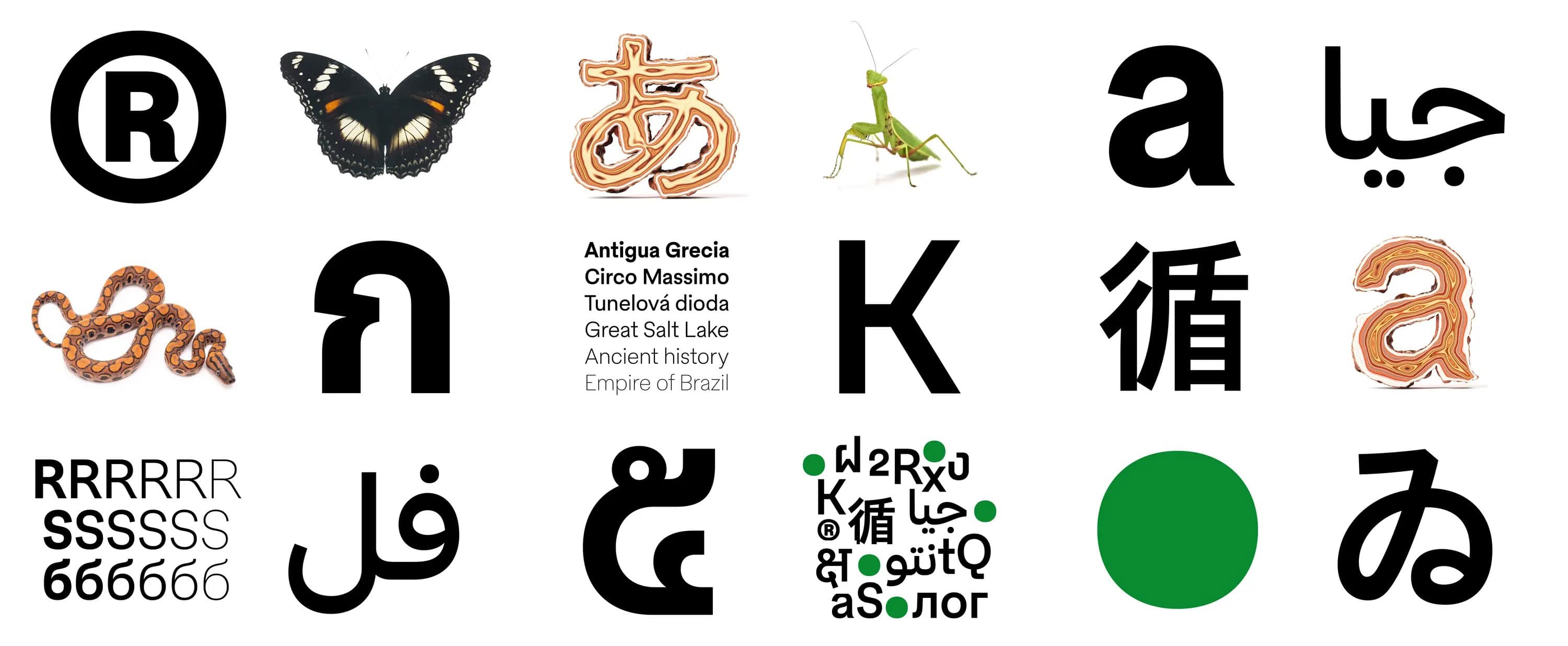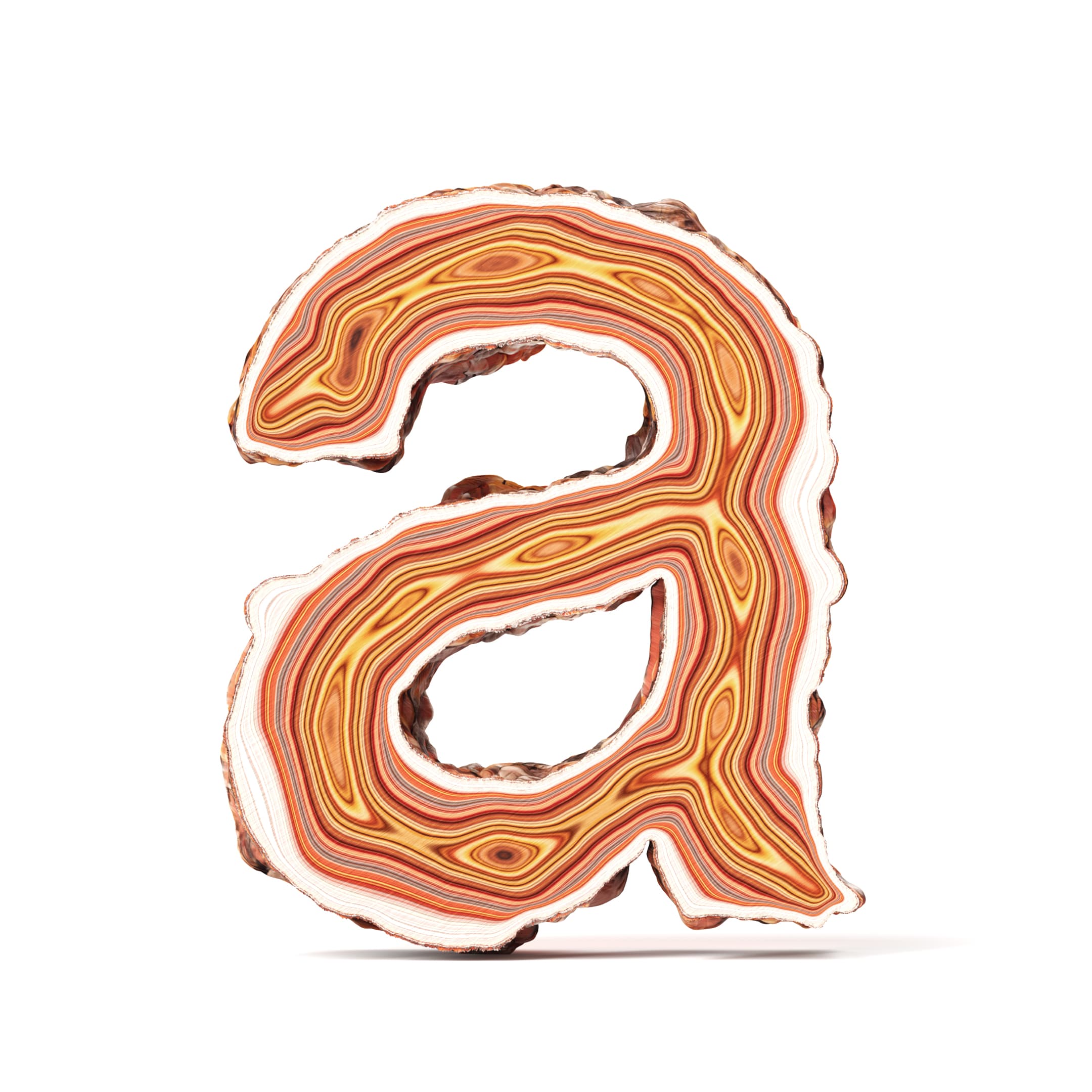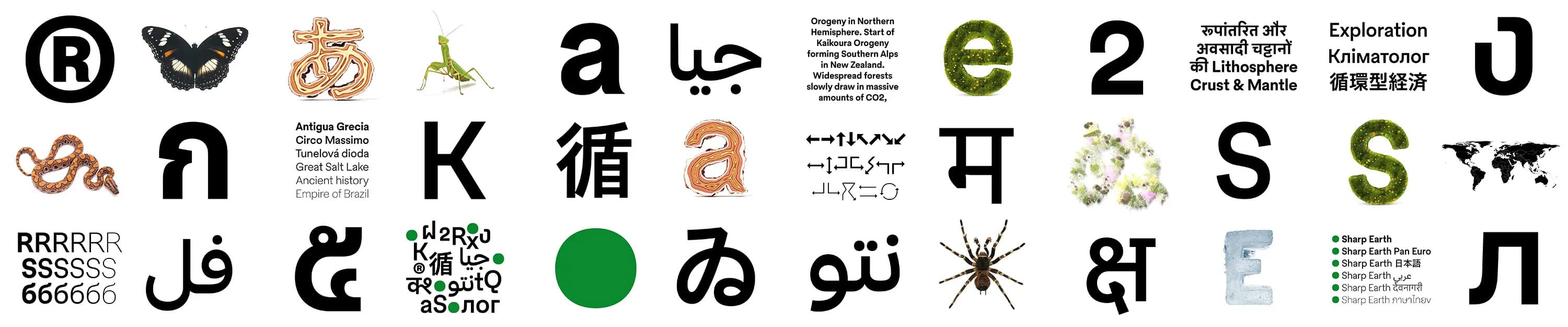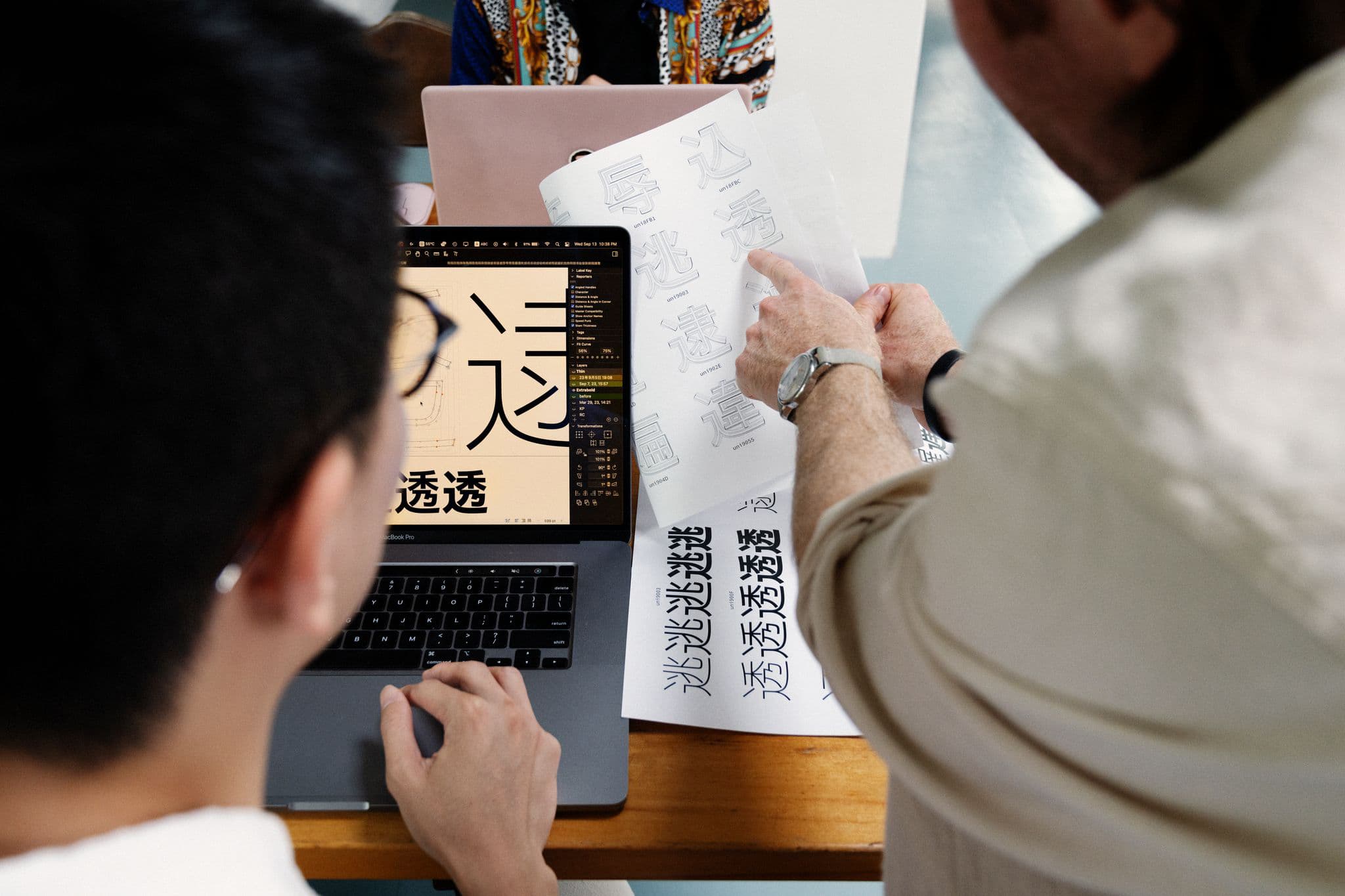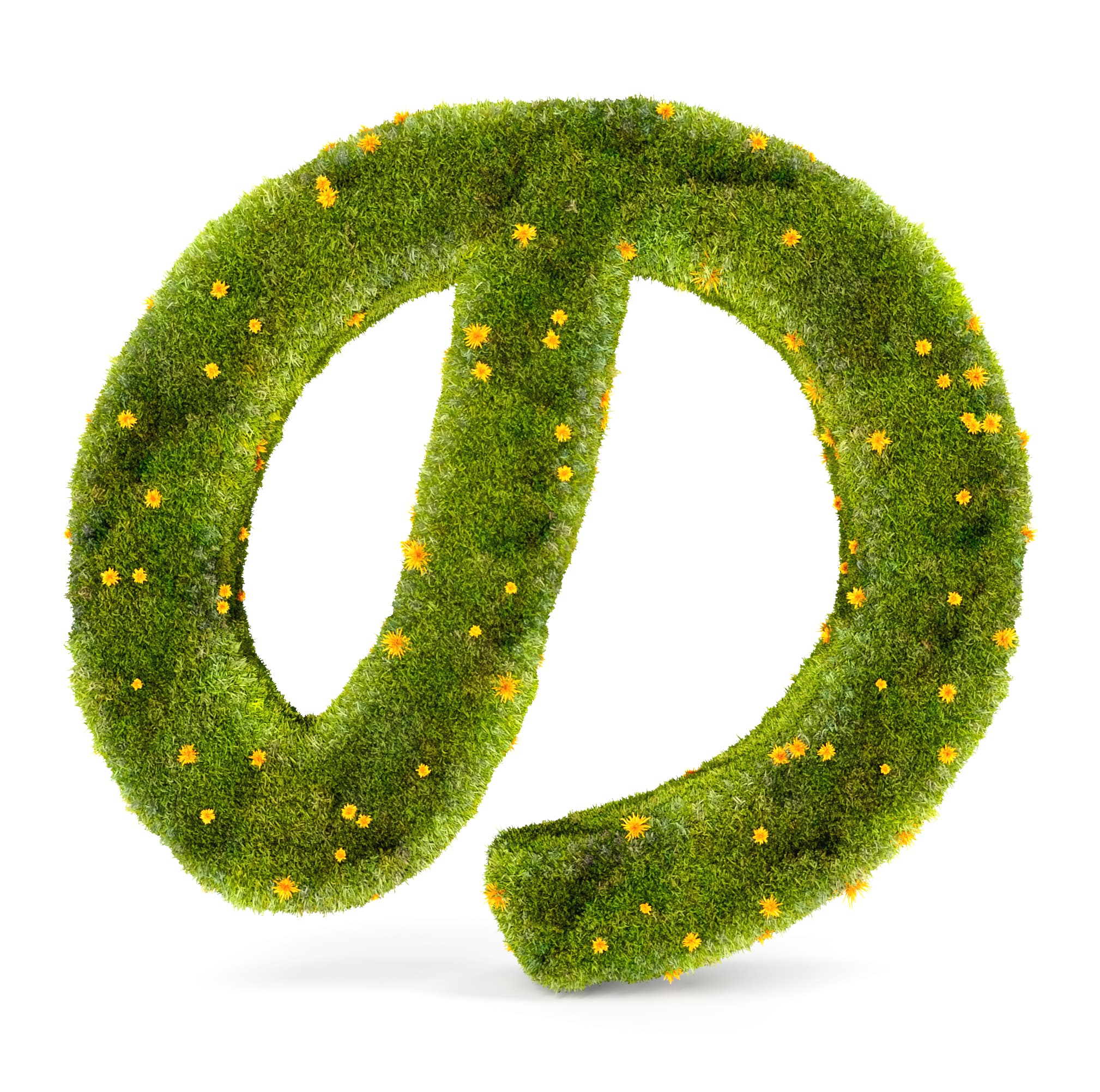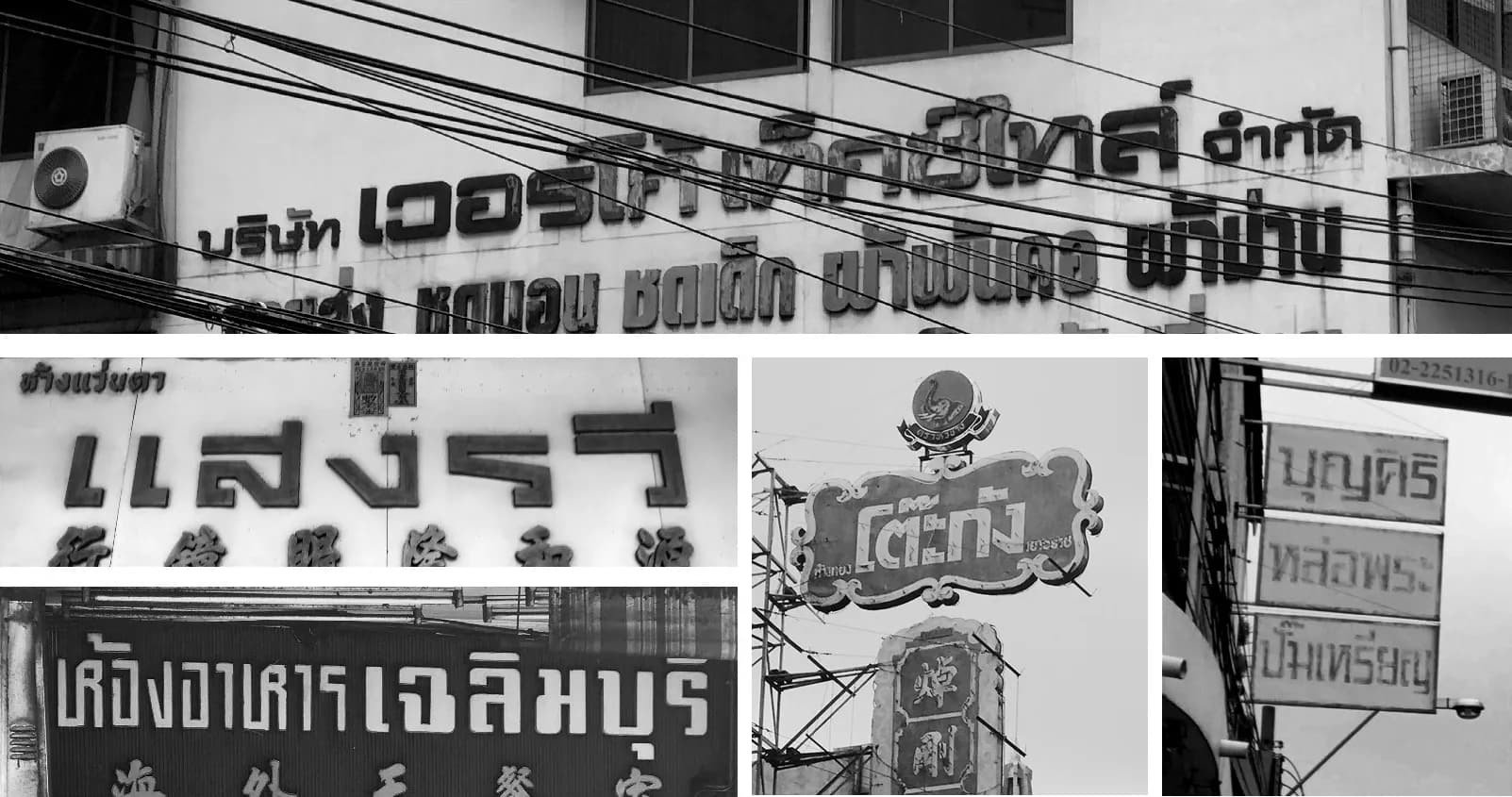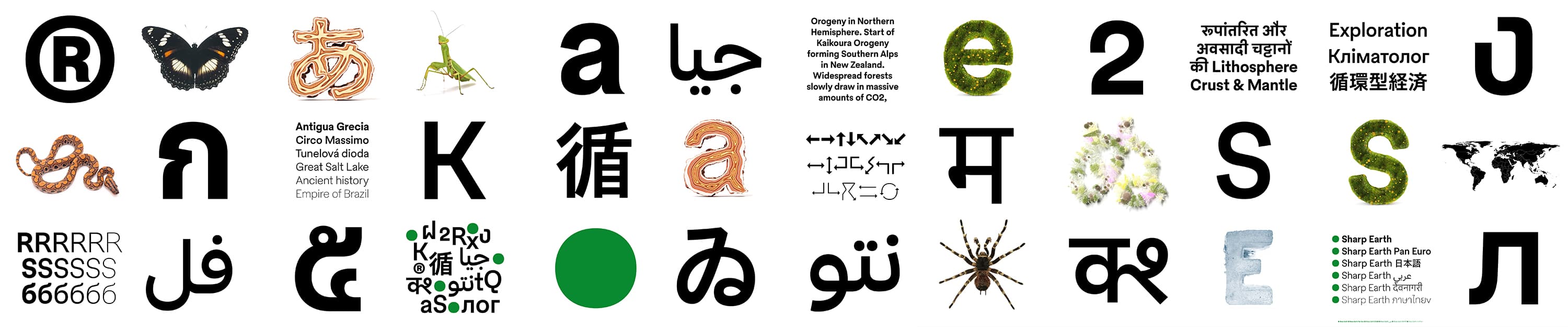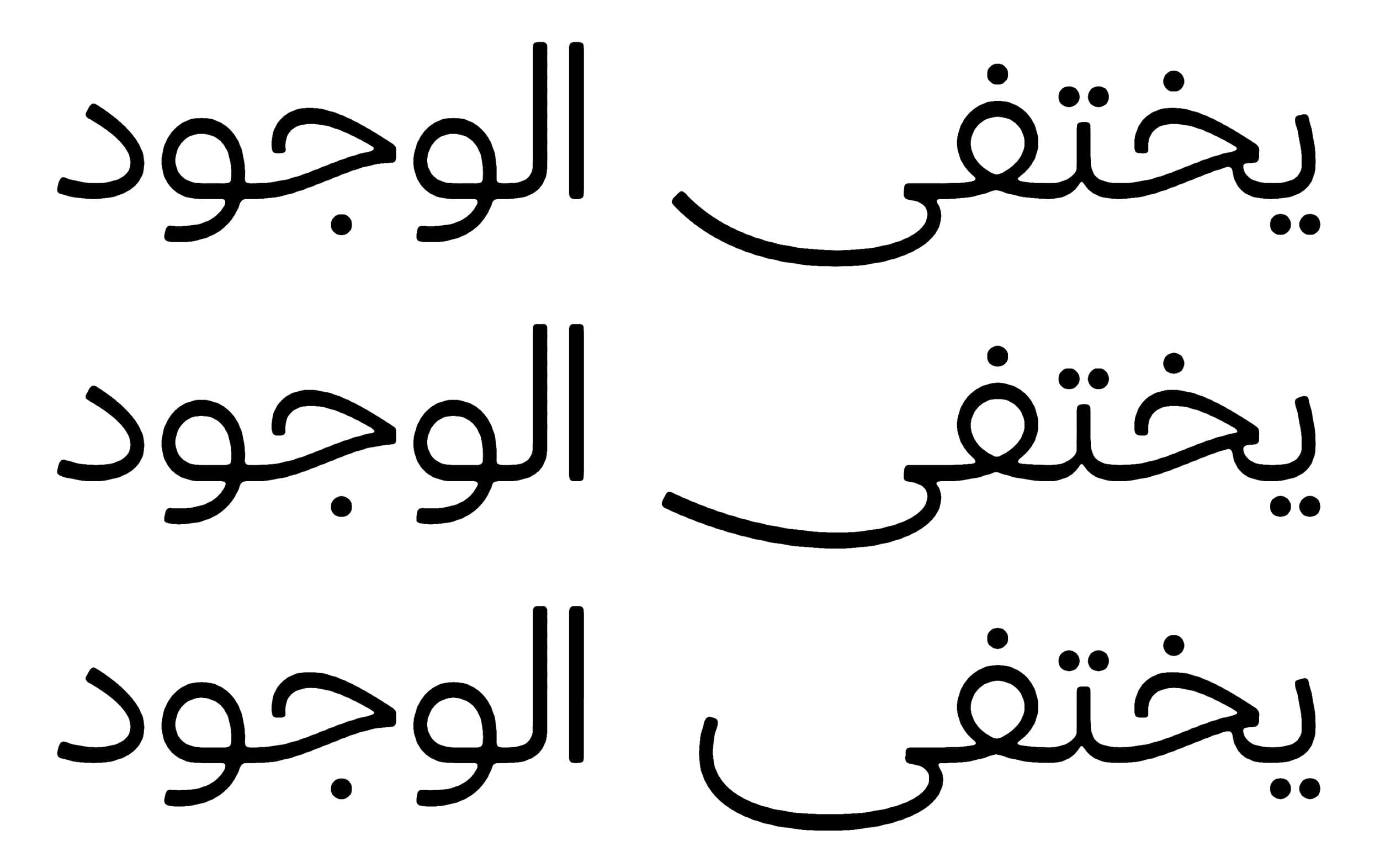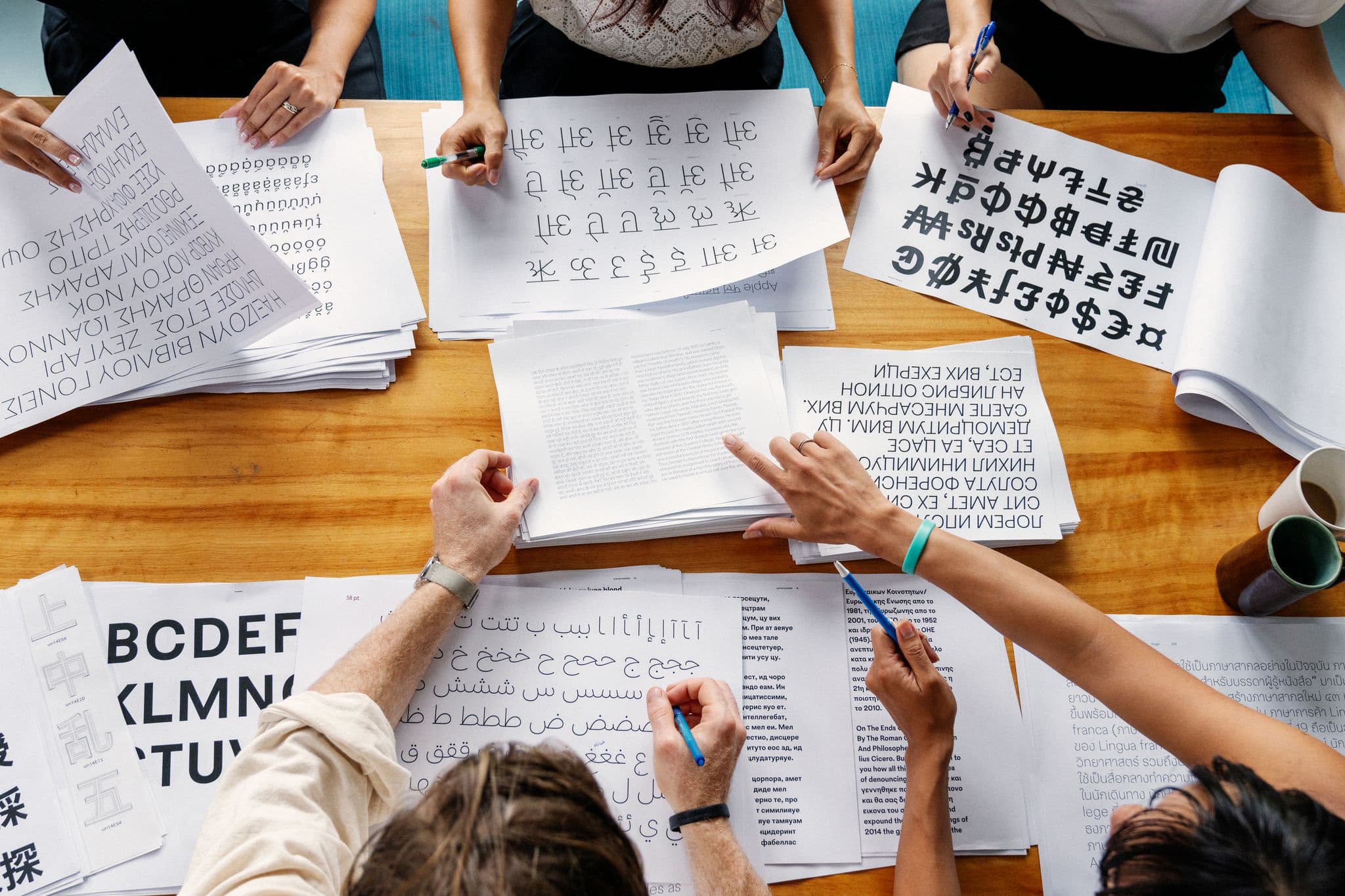
Sharp Earth is Sharp Type's largest multi-script sans serif typeface, spearheaded by Lucas Sharp and drawn in collaboration with a team of local experts from around the globe.
Sharp Earth is an expressive show horse sans serif with expansive workhorse utility. Conceived as a full-fledged multi-script family, the typeface is an amalgamation of geometric construction and Grotesk proportion. While Sharp Earth's virtually monolinear features and distinctive detailing unify the different scripts within a single collection, each one has been designed to function as a standalone typeface. The family covers nearly every latinized language script on Earth—a character set we call OmniLatin—in addition to Greek, Cyrillic, Arabic, Thai, Devanagari, and Japanese.
By the nature of its development and the particulars of its design, Sharp Earth doesn’t neatly exist within a single sub-genre of the sans serif pantheon. Rather, it brings together core aspects of the genre’s styles in order to emphasize utility, neutrality, and warmth. These qualities sit in beautiful tension with the characteristic flair that has become a trademark of Lucas’ sans serifs.
Beginnings
Sharp Earth’s origins reflect Lucas’s growing fascination with multi-script type design. In 2017, the typeface began as a series of sketches during a roadtrip through Thailand, drawn using a laptop trackpad. The family was initially conceived as a more modest PanEuro-Japanese typeface, pairing the subset of Latin, Cyrillic, and Greek with Japanese Kana.
While he was learning how to draw Greek and Cyrillic under the guidance of Kostas Bartsokas and Maria Doreuli, Lucas had also recently met and collaborated with Calvin Kwok, Sharp Type’s technical director, on Hiragana & Katakana prototypes for an unreleased Japanese typeface. He continued to chip away at Sharp Earth's OmniLatin Extrabold over the next 3 years, while simultaneously drawing the first drafts of Sharp Earth's Hiragana, Cyrillic, and Greek.
This dovetailed with the early developmental stages of our new website, Sharp 2.0, and so the decision was made to expand Sharp Earth's scope, becoming Sharp Type's new flagship sans and the debut typeface offered on the new site.
“Although I’m a native Latin designer, and while the initial idea was fleshed out in that medium, the concept of Sharp Earth was to develop a typeface for a world that was shifting away from the primacy of the Latin script” - Lucas Sharp
Development
Despite the way this case study presents one script after the other in linear fashion, the development of Sharp Earth's scripts was anything but. Rather, the various lingual undertakings had unique origin points in space and time; workflows of distinct duration, pace, and rhythm; unplanned stops and re-starts; and differing end points. There was even a period of time when all six scripts were being developed simultaneously, and we're fortunate for our collaborators' shared aptitude, diligence, and patience.
Once the designs of all six scripts were more or less complete, the next challenge is one of the least glamorous parts of type design, and certainly its most under-sung: the mastering and font engineering. This last step ensures proper compatibility amongst the various language scripts. It's a big undertaking that requires the kerning of Sharp Earth's fonts, the mastering of each script, lots of testing and reviewing, and finally, organizing the family to ensure that the final files are uploaded and ready for commercial use.
OmniLatin
As Sharp Type’s flagship sans, Sharp Earth OmniLatin has been designed for scalability across a wide spectrum of applications, containing a myriad of subtle details that work on both micro and macro levels, whether for beautifully balanced paragraphs or rich, crisp headlines.
“In Thailand, I was struck by the way Eastern and Western vernacular styles were interacting on Bangkok signage. Traveling around the world, you see the artifacts of the first wave of globalization all around you: from the roughshod contortion of native writing systems to the stroke treatment and specifications of Western typographic styles—most notably the ubiquitous ‘international’ style’.”
The development of Sharp Earth OmniLatin is a progression of this design language. Its construction and texture reference the geometric sans, while the contrast and core proportions are more reminiscent of classic Grotesks. The slight contrast between vertical and horizontal strokes splits the difference between traditionally monolinear geometrics and moderately modulated gothics, giving the typeface an indelible presence.
The narrower double-story letterforms common in geometrics are paired with distinctly oval bowl shapes found in grotesks. The apertures are tight while the spacing is relatively loose. All of these contrasting forms coalesce into a texture that is warm but austere; that is eminently readable, but upon closer inspection reveals subtle quirks and novel ideas in every curve, counter, and join.
The uppercase /G, with its subtle overbite, nods to a feature in contemporary grotesks that has passed from trend to tenet.
“The upper case /R and upper case /B—the way the top and bottom bowl are the same width is a defining element of the typeface. The /R is a reference to Univers, and the flick at the end of it is another defining attribute of Sharp Earth.”
tttttt ffffff
Lucas drew tight steampipe curves at the lower parts of the /t and /f; the divot on the top shoulder of the /t is also a subtle quirk that adds texture in text settings.
☞☝☟☜○●◎ⓘ⚪⚫■☐☒☑▪▫❌✓⏮⏩⏵⏸⏹⏪⏭🔀🔁🔊🔇
👀💥🔥💬❦❧☠☯☘⚕⚔⚜⚖⚓☮☭✡✙✠☥☦✝☪⛩☬☸✚
⚦⚥♀♂⚢⚣⚤⚧⚲⚭⚮⚯←→↑↓↖↗↘↙↔↕↩↪↯↰↱↲↳☈↵⇆
☊☋☉☽☿⊕♁♃♄♅⛢♆♇♈♉♊♋♌♍♎♏♐♑♒♓⛎
☌☍⚹⚺⚻⚼□△∠⚸⚳⚴⚵⚶⚷☄🌐🪐⚠⚡⚐⚑⌂☺☹
♠♣♥♦★☼☾♳♴♵♶♷♸♹♺
Sharp Earth’s glyph set also has an extensive range of icons and symbols. Religious, astrological, and other cultural symbols are present, as are musical icons and UI characters.
The scope of OmniLatin takes an overview of the globe that is both expansive and pointillist. Over two years, we’ve built out the character set that is now available in Sharp Earth. Sharp Type’s My-Lan Thuong undertook extensive research with scant resources to determine the character set for an estimated 1500-2000 unique African scripts, while freelance type designer Cris Hernández developed a character set for the written forms of hundreds of Indigenous North American languages with the technical support of type expert Connor Davenport.
ⱭɑƎǝꞬɡƖɩɪɁʔʕɂ⅄ƆɔƱʊƲʋ
ɅʌƷʒˀʰⁿᶿʷʸᶻȽƚꞭɬⱢɫƟɵǤǥȺⱥ
ȻȼɆɇƛȾⱦꞸꞹȦȧǞǟḎḏḤḥǰḴḵ
ḶỊṈṉṚṛṢṣṮṯĄąĘęŲųɬŊꞋꞌʻ꞉ːˑ⋯‿ǂ
More recently, My-Lan, along with fellow colleague Léna Le Pommelet, began working with Belgian type designer Marte Verhaegen to develop a tool to make the build of OmniLatin’s character set faster, simpler, and more accessible. The trio consolidated an elemental system of glyph components to include the world’s wide-ranging Latin scripts: strokes, hooks and tails, reversed or mirrored characters, accents, and even Greek characters. With this expanded Latin character set, Sharp Earth OmniLatin has been built towards more inclusive support for virtually all underrepresented Latin languages. Furthermore, the tool itself was developed to make this character set more accessible to other designers, and it will soon be opensource for the benefit of the type community.
Earth, Tɛtʋ, Erde, Nunaqpak, Dinya, Lalolagi, Terra, Tiŋgbani, Jorden, Trái Đất, Ziemia, Maa, Ntoto, Suuf, Zemlja, Ayé, Yer, Papatūānuku, Sêse, Lefatshe, Tal, Dünya, Akal, Tierra, Yvy, Honua, Aarde, Jörðin, Zəmin, Andonɛɛ, Misava, Bumi, Nunarsuaq, Dhul, Terre, Lurra, Tawava, Tero, Nahasdzáán, Mma, Pământ, Źymja, Aski, Swanta, uMhlaba, Ensi, Kalibotan
As a standalone script, Sharp Earth OmniLatin is our most thorough undertaking yet. It's also notable that it's the studio's first Latin font that was conceived as part of a multi-lingual family, and drawn in tandem with other native scripts. There is much more to come in the world of Sharp Earth, and OmniLatin sets the bar for what is possible.
Pan European
If the studio’s first foray into multiscript type design, Sharp Grotesk Global, was the genesis of Lucas’s fascination with multiscript design, Sharp Earth reflects Lucas’s growing expertise.
Lucas drew the Greek and Cyrillic himself, having gained enough experience directing Sharp Grotesk’s development. “I didn’t look at any reference material while drawing them, either,” says Lucas. “It was all very intuitive.” While Kostas and Maria were integral as consultants, Sharp Earth PanEuro was conceived as a set, and Lucas drew the Greek and Cyrillic in tandem with the Latin, refining them all concurrently.
Lucas had come to understand the distinct contrast methodology and stroke emphasis of standard Cyrillic text faces, which was key to accurately drawing Sharp Earth’s character set. “Even a seemingly monolinear typeface like Sharp Earth had to be informed by these underlying principles,” he says. “A good example is (И), which might appear as a direct mirror of the Latin /N. If, however, this letter was drawn with the weight compensation typically used for an /N, it would look strange to those familiar with Cyrillic. The difference is to remove weight from the middle stroke instead of the outer strokes to compensate for the weight, keeping with the essential ideal of this letter.”
И N
Д Л
The upper and lowercase forms of (Д) and (Л) operate on a similar principle, so subtle handling of weight with these forms was of the utmost importance.
That said, certain characters from the Latin alphabet carry over quite well to Cyrillic, especially when working with a sans serif of the international style. The Cyrillic uppercase offered many opportunities to employ the slight top-heavy style of Earth, such as the (Б), (Ч), and (Я).
Б Ч Я б
The (Я,я) form is based on an older, more Grotesk version of the Latin /R that turned out to be more appropriate for the Cyrillic version. This /R is still accessible as an alternate for Latin.
“Cyrillic’s fundamental forms and shapes offer fewer opportunities to express Sharp Earth’s curvilinear eccentricity, so the lowercase (б) is an important moment, as is its Bulgarian alternate counterpart.”
“The Greek script, on the other hand, offers much more opportunities for curvilinear expression, so much so that I got a bit carried away.” The robust set of alternates in the Greek lowercase is the result of extensive experimentation with different letter constructions with the goal of achieving the perfect balance of expressive humanist shapes and austere geometric forms. “I was very attached to the lusciously curvy (theta.alt, phi.alt), but in the end, they were a bit too curvaceous.”
“The (alpha.alt, gamma.alt, iota.alt, kappa.alt, lambda.akt mugreek.alt, tau.alt, and chi.alt) were more geometric than the Latin, and we were happy to relegate them to a stylistic set.”
ΑΆΒΓΔΕΈΖΗΉΘΙΊΪΚΛΜΝ
ΞΟΌΠΡΣΤΥΎΫΦΧΨΩΏ
αάβγδεέζηήθιΐίϊκλμν
ξοόπρστυΰϋύφχψωώ
Sharp Earth is a contemporary expression of the international style, encapsulating a forward-looking aesthetic paradigm that has been drawn by and for a truly global design culture. Sharp Earth PanEuro has a unique place in the family since their core character sets, along with OmniLatin, were drawn by a single designer, giving this subset an unmistakable consistency of form and feel. The family is both workhorse and flagship, encapsulating the ethos of the larger collection while testifying to Lucas’ expanding skill set as a type designer.
Japanese
Sharp Earth Japanese is a comprehensive Japanese typeface system covering Hiragana, Katakana, and Kanji scripts that retains Sharp Earth’s core design principles of warmth and neutrality. Overseen by Lucas Sharp and led by Calvin and Klio Peng, Sharp Earth Japanese’s development involved extensive research, meticulous planning, and collaborative design efforts with an international team. Its design required the creation of new tools and evolving systems over a period of two years of sustained, concentrated work. The result is a harmonious typeface family that is a microcosm of the intricacies and complexities of contemporary multiscript design.
Initially conceived as a pairing of Kana with the PanEuro subsets of Latin, Greek, and Cyrillic, the original design of the Hiragana was drawn by Lucas in 2019, who produced a few drafts with the consultation of Ayaka Ito, a Japanese-American type designer. The scope of the project grew ambitiously when the decision was made to produce a complementary Kanji set. From Hong Kong, Calvin was tasked with putting together a team that could deliver such a massive character set on time and within budget. With Klio Peng onboard, the two of them led the production of Sharp Earth Japanese with group of Taiwan-based designers.
Japanese uses three writing systems: Kanji (ideograms derived from Chinese characters), Hiragana, and Katakana. Hiragana and Katakana are syllabaries, with each character representing a syllable. Hiragana is primarily used for native Japanese words and grammatical elements, while Katakana is used for foreign loanwords and emphasis. The combination of ideogram and syllabic script—and even Latin characters—gives Japanese a unique complexity.
Kanji
Sharp Earth Japanese’s inception was rooted in the historical evolution of Japanese Gothic typefaces, which aimed to infuse Sharp Earth Japanese with both classical and contemporary elements, drawing initial inspiration from 吳竹活字, a historical sans serif Kanji drawn in the late 19th century. This particular reference was pivotal in shaping the approach to curves, proportions, and spatial dynamics, resonating with the design principles of Earth Latin in both physical form and underlying concepts.
“The practical considerations for Sharp Earth Japanese’s design included ensuring readability and versatility for modern graphic design, while trying to balance a tight center area and loose apertures and manage the contrast between vertical and horizontal strokes across multiple weights,” says Calvin. “Additionally, harmonizing the interplay between Kana and Kanji scripts while ensuring their features align well with the Latin counterparts was also a significant focus.”
The team defined core design principles from Sharp Earth Latin, characterized by minimal stroke width contrast and a deliberate flow of curves, in order to guide the Kanji script adaptation. The overall aim was to maintain the texture and simplicity of Earth without abbreviating any of the structural complexities of Kanji and Kana. With this foundation, the design process officially started in late 2021, with the team opting to begin with a Bold weight equivalent, Earth Extrabold. This weight was chosen since it is generally more challenging to draw than thinner weights due to its more intricate design, and the corresponding definition it provides to the shape of the strokes.
A foundational set of 12 industrial standard Kanji characters was selected for initial focus, with the character 東 being pivotal in establishing the overall tone and proportions for the entire typeface. Significant time and effort were dedicated to designing the character 愛 as well. As a central element of the initial set, inspired by the unique interpretations found in 吳竹活字, the team worked on crafting various versions of this glyph, striving to strike a balance between its inherent quirkiness and a modern aesthetic. This was most evident in the elegance of its minimal contrast and unhurried flow of curves.
東 愛
To further reflect the "contemporary" details, features such as the symmetrical feet of 日 in 映, the symmetrical dots in 小, and the vertical bend of the top-right corner of 阝 in 都 were incorporated. The team also translated geometric constructions from Sharp Earth Latin into Kanji, opting for symmetrical strokes in 心 and a slightly more compact central core with elongated falling strokes (払い) in 愛, aligning with the reminiscence of the Grotesk lineage in Sharp Earth Latin.
都 払い 愛
The project involved a significant degree of collaboration with a team of skilled Japanese and Taiwanese designers, who were integral from the planning to the executing stages of the design. “Ensuring a shared aesthetic among all team members in drawing each character and maintaining consistency in quality and features was the most challenging part of the design process,” says Klio. “However, we implemented methods to address this challenge by placing great trust in different roles, fostering frequent communication, and employing meticulous building and revising processes.” Consulting with various experts helped to ensure that each glyph not only adhered to Japanese typographic standards and expectations, but also incorporated native design principles.
日 映 心
After establishing the foundational glyphs, the team identified and began designing frequently used components and parts to scale up production efficiently. Notably, the team also experimented with a new methodology of creating component-based glyphs through the development of a tool that uses the ufo file structure as a building block. This phase was followed by a thorough review of all glyphs in various orders and groups to maintain consistency and quality across the script. Despite the complexity and demanding nature of designing a comprehensive set of Kanji and Kana glyphs, particularly for a foundry without prior experience in Japanese script, the team implemented rigorous methods of collaboration and review. “Despite the lengthy and demanding process, it was essential to guarantee the high standard of the final product,” says Calvin.
The extensive collaborative efforts culminated in the launch of Sharp Earth Japanese, marking a significant expansion of the Sharp Earth family. This launch showcased a harmonious blend of aesthetic precision and functional versatility, reflecting an ongoing adaptation of Earth’s design principles to the Japanese script. This structured approach not only highlights the detailed steps taken in the design of Sharp Earth Japanese, but also underscores the collaborative and iterative nature of creating a multi-script typeface that aligns with both aesthetic and functional demands.
Kana Scripts
With the development of Sharp Earth Kanji underway, Sharp Type approached Kazuhiro Yamada, a native Japanese type designer, to assess Lucas and Ayaka's draft of the Kana script and make final adjustments to the artwork. Just as the two scripts that make up Kana originally sprang from Kanji in the 9th century, our process paralleled history in this small way, with Kazuhiro developing his designs using Lucas' Hiragana draft and the Kanji prototypes provided by Calvin and Klio’s team. He began production around April of 2023 and completed the Katakana and Hiragana masters in three months, giving the Sharp Type team time to review the files and integrate them into the larger family.
“Before I actually begin designing the glyphs, I often make a rough draft on a sheet of graph paper to confirm the general shape I want to create,” says Kazuhiro. For inspiration, he looked to history—not only to exemplars of greater Japanese type design, but to his own past. “When designing new Japanese typefaces, I develop ideas by studying existing Japanese typefaces and metal typefaces from the past. Tazugane Kaku Gothic, which I designed, has also become a standard when I start designing a typeface.”
“I first started working with the thickest weight, Extrabold. They are the most complex in terms of shapes and paths. If the thicker weights can be completed with high accuracy and without failure, the thinner weights can be made easily.”
・ヽゝゞーぁあぃいぅうぇえぉおかがきぎくぐけげこごさざしじすずせぜそぞただちぢっつづてでとどなにぬねのはばぱひびぴふぶぷへべぺほぼぽまみむめもゃやゅゆょよらりるれろゎわゐゑをんァアィイゥウェエォオカガキギクグケゲコゴサザシジスズセゼソゾタダチヂッツヅテデトドナニヌネノハバパヒビピフブプヘベペホボポマミムメモャヤュユョヨラリルレロヮワヰヱヲンヴヵヶゔヷヸヹヺ
“The design process itself was not particularly unique,” continues Kazuhiro, “but the existence of a prototype [of the Kanji] was unusual. The fact that Kanji samples had been created in advance made it easier to come up with the Kana designs.”
亜哀愛挨悪握圧扱宛安暗案闇以位依偉囲委威尉意慰易椅為畏異移維緯胃萎衣違遺医井域育一壱逸稲芋印咽員因姻引飲院陰隠韻右宇羽雨臼渦唄浦運雲営影映栄永泳英衛詠鋭液疫益駅悦謁越閲円園宴延怨援沿演炎煙猿縁艶遠鉛塩汚凹央奥往応押旺横欧殴王翁黄岡沖億屋憶臆乙俺卸恩温穏音下化仮何価佳加可夏嫁家寡科暇果架歌河火禍稼箇花苛荷華菓課貨過蚊我画芽賀雅餓介会解回塊壊快
That said, Sharp Earth’s distinctive design created certain challenges. “Sharp Earth follows the model of traditional grotesque typefaces, a bit top-heavy, but it has a high center of gravity for the lowercase letters. Overall, the typeface looks both modern and traditional, unique and timeless at the same time, showcasing a contradictory impression. I kept in mind to try to ‘translate’ this quality into the Kana in order to make it look ‘as if it had always existed’ with a design that is ‘just a little bit unique’.”
おぬねの
ほみむめ
Since the 1980s, sans-serif typefaces have gained popularity in Japan, and they tend to be characterized by their use of numerous straight lines and a design that emphasizes a uniformly wide ‘tightness’ and the surface area of characters. “In the case of Sharp Earth Kana, the approach was different, aiming to blend traditional elements with a unique style. By analyzing the Kanji prototypes, which did not over-expand the ‘tightness’ and surface area of characters, the design minimizes the use of straight lines and incorporates various aspects of traditional Japanese Gothic typefaces, which are distinct from sans-serifs.” To achieve this distinctive blend, Kazuhiro engaged in an iterative process of meticulous revisions and extensive testing with long texts to ensure legibility in smaller text settings.
あ ぬ め
Unique attributes of Sharp Earth Kanji’s design were further incorporated into the Kana: “Sharp Type provided a set of prototype Kana, with glyphs like ‘あ’ ‘ぬ’ and ‘め’ having a design treatment not found in conventional Japanese sans-serif forms. In these glyphs, a diagonal stroke swings down from the left and is separated from the next stroke. I decided to make use of this feature; I thought it could be a key point in determining the character of the typeface.”
Kazuhiro’s design for Sharp Earth Kana had to satisfy a number of goals. Practically, the Kana had to work on its own terms while matching the design of the Kanji and also take into account the multilingual context of the larger Sharp Earth collection. “I wanted to ensure that uniqueness does not hinder readability, and balance uniqueness with straightforwardness. Sharp Earth is traditional yet unique, and its charm has moderation. Reflecting on the potential adaptability and modification of Sharp Type's Kana prototype design was an engaging and enjoyable process.”
The development of Sharp Earth Japanese has been Sharp Type’s most extensive single-script project to date, and it was essential to find like-minded native type designers who not only possessed the skills but also an openness and team-oriented attitude to work towards a common goal. The dueling qualities of “classic” and “contemporary” permeate not only the design of the Sharp Earth family but the nature of its development as well. “Collaborating with foundries from various overseas countries and observing how non-native Japanese type designers perceive and interpret Japanese Kana has been a refreshing experience,” says Karuhiro in closing. “I was pleasantly surprised.”
Arabic
Sharp Earth Arabic is Sharp Type’s first Arabic typeface, a versatile low-contrast script that matches its Latin counterpart’s balance of expressiveness and neutrality through a balance of practical legibility and design idiosyncrasy. By honing in on the boldness of Thuluth calligraphy and the clarity of Naskh’s rounded forms, Sharp Earth Arabic captures the tension of the larger Earth project beautifully, sharing the Latin’s low contrast, delicately flared terminals, and uniform ascender height. Sharp Earth Arabic was initially developed by Shahd El-Sabbagh in late 2020 before the baton was passed to Maha Akl, who finished the character set in October of 2023.
Arabic script is an abjad primarily used for writing Arabic and other languages like Persian and Urdu. It's a consonant-only script with diacritics to indicate vowels. It's written from right to left and features a cursive style, with many characters connected in flowing lines. Its cursive nature allows for ligatures and connections between characters. A unique aspect is its initial, medial, final, and isolated forms of letters, which are determined by their position in a word.
The project began with an analysis of Sharp Earth Latin with a focus on its low-contrast design, which became a pivotal feature in designing the Arabic counterpart. The low contrast facilitated a visual compatibility between the two scripts, setting a foundation for the designers' work. Shahd and Maha approached the design process with differing methodologies: Shahd chose to concentrate on key glyphs such as BEH and YEH ISOL in both Light and Bold weights, establishing a foundational style and weight for the typeface; conversely, Maha adopted an impressionistic approach, viewing the letters in their entirety from the outset, which allowed her to refine the design bit by bit, ensuring a cohesive aesthetic across the script.
One significant adaptation in the design process was the reversal of the traditional contrast seen in Latin script—making vertical strokes thinner than horizontal ones. This adjustment was critical as it mirrored the natural contrast typically found in Arabic scripts. The low contrast of Sharp Earth meant that, even with this change, the typeface maintained a visual and structural consistency across the two scripts.
Sharp Earth Arabic is mainly influenced by Naskh and thuluth styles. Naskh is usually used for body text while thuluth is used for bigger titles. Thuluth usually has larger counters than of Naskh and longer ascenders. For example, the medial ain ـعـ is a mix between both styles, it has an open counter but the structure is following the naskh style.”
العالمين
The process was not without its challenges. The designers faced the intricate task of balancing the visual weight and form of the two scripts, considering both the digital medium they would inhabit and the inherent differences between the connected Arabic script and the disconnected Latin. Some key glyphs that were particularly challenging were the kaf medial, a beautiful letter with so much potential even when monolinear, and the reh and waw and meem isol and final forms, which often create collision problems, especially when neighboring letters are dotted below.
ـكـ
The task of simplifying traditional calligraphic details of Arabic script to match the more simpler strokes of the Latin script required careful consideration to ensure that the essential character of the Arabic script was not lost. This simplification was crucial for digital legibility and utility but risked diminishing the script’s traditional aesthetic value. For Maha, designing the connecting memes as well as the swash character styles was the most time-consuming part of the project. “I was torn between going for a Naskhi look or to integrate the maghrib-like swashes that are rounder. I decided to go for the latter in the final version,” which aligned better with the overall modern and streamlined look of the Sharp Earth design.
Because Arabic does not traditionally use slanted forms for the sake of emphasis, the italics drawn for Sharp Type Arabic have been drawn for use in conjunction with Sharp Earth’s other scripts as needed. The topic of Arabic italics is controversial to say the least, presenting a fascinating microcosm of larger challenges in multiscript type design. For Sharp Earth Arabic, Maha drew the script’s slanted form to follow its Latin counterpart—a pragmatic design decision that must be understood in context. “It was imperative to have the Arabic slant in the same direction as the Latin in order to maintain the flow of the text in bilingual contexts,” says Maha. “It would have been distracting to have opposite slants within the same sentence.”
The creation of Sharp Earth Arabic by Shahd and Maha is a testament to the intricate blend of artistic vision, technical expertise, and cultural sensitivity required in typeface design. Their work achieves a functional and visually appealing script matchup while advancing the ongoing dialogue on how multi-script typefaces can be crafted to meet the demands of global digital communication, bridging typographic differences with holistic vision and granular focus.
Thai
The loopless variant of Sharp Earth Thai, crafted by Cadson Demak under the leadership of senior type designer Knaz Uiyamathiti, stands as a bold interpretation of Sharp Earth's essence, blending austerity with warmth. Rooted in a year-long project that commenced in late 2021, the design journey of Sharp Earth Thai was marked by an experimental approach, leveraging insights from the era of dry transfer typography and the striking ways Thai and Latin letterforms were set together during this time.
Thai, as an abugida writing system, offers a unique structure where consonants and vowels form segmented units, read left-to-right without spaces between words. Sharp Earth Thai pays homage to heritage while showcasing Cadson Demak's meticulous attention to detail and exploration of stylistic nuances. From the incorporation of Sharp Earth's distinct ink traps and terminal kinks to the translation of Latin features like the /G crossbar into Thai characters, the design process was rich with thoughtful adaptation. Thai is not a common script extension, but it’s an homage to studio founder Chantra Malee’s heritage. For both of these reasons, Sharp Earth Thai has a special place in the world of Sharp Earth.
“The design process of Sharp Earth Thai was a bit experimental,” says Knaz.
จจจ กกก ชชช
“The design process of Sharp Earth Thai was a bit experimental,” says Knaz. The existence of a Latin character set gave room for the Cadson Demak team to explore different shapes and textures within the Thai extensions. They started with the Extrabold weight and the koKai-thai character since this character can be expanded into many others. “It is also the most repeated form, so it will determine the overall texture of the set.”
Key Thai characters like 'saraAa', 'choChan', and 'hoHip' guided the design direction, embodying Sharp Earth's neutral yet subtly playful ethos. Each letterform balances tradition and innovation. Notable examples include 'hoHip-thai', where a slanted stem complements specific Latin characters, 'loLing-thai', echoing the trend of Latinization with necessary adjustments, and 'doDek-thai', featuring deliberate stylistic choices inspired by the terminal ends of Sharp Earth Latin.
ห
R
hoHip-thai; “This letter is the most stylistic character that you could design. Traditionally, the right stem of hoHip-thai is upright, but in this design, we've slanted it to go with specific Latin characters. We've translated features that were found in the construction of 'R' that is found in the diagonal stroke of its leg.”
ล
a
loLing-thai: “The Latinization of Thai letterforms has become a stylistic trend since the era of dry-transfers, specifically this letter, which has similar forms as the Latin /a. It could be shared directly, but it still needed some adjustment in specific cases to fit in more within the Thai context.”
ด
t
doDek-thai: “This letter has features lifted from the terminal ends of Sharp Earth Latin’s lowercase /t, where the terminal lays flat with the baseline. In more traditional settings, this would not be the case as the terminal ends would be lifted upwards more. However, with Sharp Earth Thai, we made this a deliberate stylistic choice as a translation from the Latin set.
Sharp Earth Thai marks our second collaboration with Cadson Demak. As before, the Bangkok-based studio brought their characteristic professionalism and insight to the project, and we’re grateful for their expertise as we continue building upon the work we’ve done before. Being one of the few foundries to offer Thai as a script extension, we like to think it’s becoming something of a trademark, and we’re excited to see what our shared future holds as we continue to work together.
Devanagari
Anagha Narayanan's endeavor with Sharp Earth Devanagari marks a significant milestone for Sharp Type's exploration into Indic scripts. The meticulous design process involved studying Devanagari signage, calligraphy manuals, and book covers, alongside a thorough examination of Sharp Earth Latin's stylistic nuances. The result is a craftily executed script that mirrors Sharp Earth’s overall warmth, approachability, and groundedness while translating certain key stylistic quirks—such as the Latin’s ink traps, top-heavy Grotesk proportions, and geometric terminals—into a new context. Crafted over a span of 2-½ years, Anagha began work at the start of 2021 while she was enrolled in a full-time type design course, making Sharp Earth Devanagari a testament to her growing erudition as a type designer.
Devanagari is an abugida writing system used for languages like Hindi, Sanskrit, and Marathi. It consists of consonant-vowel combinations where consonants are represented with a base character, and vowels are indicated with diacritic marks. Devanagari is notable for its vertical line on the left side of characters, called a "shirorekha" or "head line." It's unique in the way it combines consonants and vowels into a single character, making it efficient for representing syllables.
अ क ड थ द प ल
Anagha referred to certain Devanagari shop signs, book cover lettering, and calligraphy manuals throughout the design process, but her initial task was to study Sharp Earth Latin. “I had to adapt the Devanagari to an already established Latin design, so this required an understanding of the structure of the Latin design first; after that, I could pick out key features and ideas from it to impart onto the Devanagari design.”
In order to determine the overall proportions and vertical metrics, Anagha began work on the regular and black weights in tandem, honing in on a selection of letterforms—अ क ड थ द प ल— that would help her make key decisions about counters, knots, loops, stroke terminals, and double-storied forms for the entire font family. “Early on in the process I also added above base and below base matras along with select conjuncts which helped in determining the weight and texture of the Devanagari letterforms. I explored several options for these parameters before narrowing down on a system.”
यद्यपि बायोम में वनस्पति और जन्तु दोनों को सम्मिलित करते हैं, तथापि हरे पौधों का ही ज्यादातर प्रभुत्व होता है क्योंकि इनका कुल जीवभार जन्तुओं की तुलना में बहुत अधिक होता है। विश्व में पाँच स्थलीय बायोम क्षेत्र पाते हैं। किसी रेगिस्तानी बायोम में पौधों में अक्सर मोटे पत्ते होते हैं (ताकि उनका जल अन्दर ही बंद रहे) और उनके ऊपर कांटे होते हैं
Finding the right texture balance between two scripts that are traditionally and structurally very different was the biggest design challenge. The forms in Devanagari are a lot more populated, which could contribute to overall darker textures. “We had to address the extreme weights in this design space—the thin and black weights particularly. The letterforms in Devanagari can get very dense, and with the addition of vowel marks, it tends to increase the ‘grayness’ of the overall structure.”
For this reason, the shirorekha, or top horizontal line, of the Devanagari sits just under the cap height of Latin and rests on the same baseline. It took several rounds of testing to crack the right weight to match the two scripts in texture. In the end, she and Lucas made the decision to design the black and thin weights to work for display sizes predominantly, and the regular and other intermediates to work for text.
ड ठ ह छ
In terms of unifying the two scripts, the main considerations were geometric connections and a slight flaring-out at stroke endings. “Sharp Earth Latin has varying grotesk-like proportions—rounded glyphs are very wide while the /E /S and other letterforms are relatively narrower—which I tried to emulate in Devanagari in letters like ड ठ ह छ. I also tried bringing in features of the Latin double-storied forms, where the counter sizes on the top are slightly bigger such as अ घ ध.”
भ म t n
Sharp Earth Latin’s mix of geometric and grotesk features doesn’t comply with one model, but contains a blend of different influences. “Some of the features that I found particularly interesting were the presence of ink traps in perpendicular junctions like in भ and म.”
अ घ B S
Additionally, the Latin features heavier tops in double-storied letterforms like /B and /S which Anagha tried to bring into the Devanagari in forms like अ घ.
And finally, the geometric terminals in letterforms like /t, /y, and /c made her turn towards a more geometric connection for Devanagari letterforms like ल, त and the eMatra.
Despite the challenging nature of the project, finding a solution that was both practical and creative had its pleasures. “I enjoyed drawing the black weights, especially for dense forms like ढ्ढ ड्ड. These vertically stacked forms are compressed vertically and to find the right curve tension and weight balance are crucial.”
“Both scripts share the feeling of warmth. In terms of construction, the aim was not to snip out shapes from Latin as is but to be inspired by proportions, curve tensions, and an overall feeling.”
t y c ल त ढ्ढ ड्ड
Drawing inspiration from Sharp Earth Latin, Anagha created a Devanagari script that stands on its own while skillfully adapting to an established design. Crafted over a span of 2-½ years, the overarching goal remained to evoke warmth and coherence in both scripts, not merely by replication but through inspired proportions, curve tensions, and an overarching sense of unity. As Sharp Type's inaugural Indic script, Sharp Earth Devanagari not only expands the typographic repertoire but is a testament to Anagha’s deep understanding of both script’s structures and her growing expertise as a type designer.
Future
The near-term aspiration for Sharp Earth is to dive straight into Chinese GB-2312, and we are also pursuing a Hangul script. Beyond that, we hope to work with more Indian collaborators on more Indic scripts like Tamil, Telugu, and Bengali. OmniLatin now extends its support to virtually all Latinized African languages, and have very good support throughout the rest of the African continent, so we want to eventually build an Ethiopic script. Finally, we will be expanding our Kanji set; The JIS 1-2 we currently support is robust and can handle 99% of all commercial applications, but we want to make sure Sharp Earth Japanese includes character for more voluminous editorial and educational applications.
The development of a global type family is a wildly labor-intensive undertaking that typically requires major institutional resources to realize. The products of these efforts often benefit the commercial interests of its developers, the communication flow of multinational commerce, and, hopefully, users of under-served languages. Because of the structural limitations inherent to the institutional frameworks of their conception, however, the resulting typefaces either lack in artistic expression—Google’s Noto Sans— are proprietary and therefore inaccessible—Apple’s San Francisco family—or are too specific to the brand it has been designed to represent—IBM’s Plex.
The stakes are simply higher for us. As an independent foundry with finite resources, Sharp Earth represents a significant gamble into uncharted territory. Its multiscript design has been deliberated over to feel both classic and contemporary, unique and familiar, adaptable and noticeable. Sharp Earth is our most ambitious project to date. Its scope wasn’t an obligation, but a choice, and the first steps towards the possibility of a new standard. It’s a contemporary expression of the international style, unified by a forward-looking aesthetic paradigm that has been drawn by and for a truly global design culture. Sharp Earth is, simply put, a love letter to this planet and all the people on it.